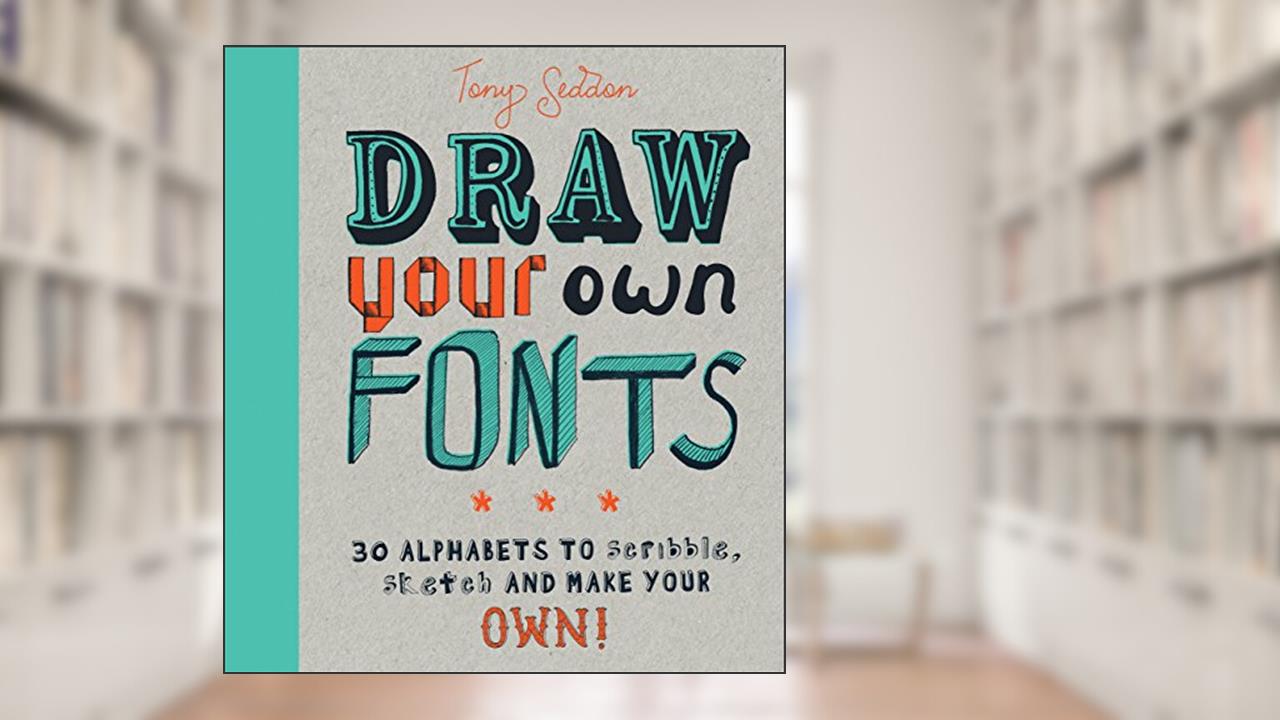
Draw Your Own Fonts
30 alphabets to scribble, sketch, and make your own!
Tony Seddon
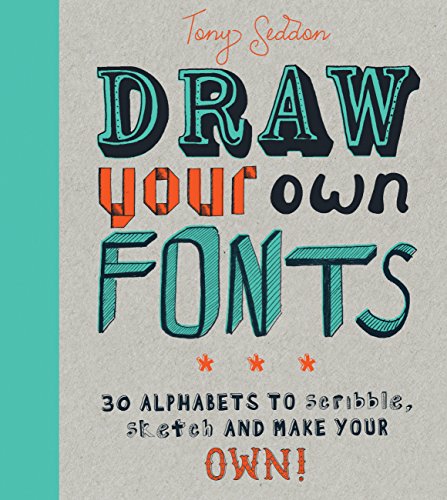
Artistry intertwines with playfulness in Draw Your Own Fonts: 30 alphabets to scribble, sketch, and make your own! by Tony Seddon, a gem for anyone looking to unleash their creativity. This isn't just a simple guide to letters; it's a vibrant invitation to shake off the mundane shackles of conventional typeface design and dive headfirst into a world filled with whimsical alphabets waiting to be brought to life by your own hands.
People often think fonts are merely the tools of typographers or graphic designers, but Seddon compels you to realize they can be a personal expression of who you are. Throughout the 160 pages, you will feel the magic coursing through each suggested style, from the bold strokes of calligraphy to the playful curves of cartoon-inspired letters. The sheer joy of doodling transforms into a purpose-a means of communicating not just words, but personality.
Readers rave about how Seddon's unique approach not only arms them with techniques but also nourishes their imagination. With 30 distinct alphabets, you're not just learning; you're engaging in a creative dialogue with the pages, sketching your own narrative in letters. You won't merely follow instructions; instead, you'll embark on a journey of self-expression where each letter becomes a doorway to reflection and joy. ✍️✨️
Seddon's knack for making typography relatable has been a breath of fresh air for both novices and experienced artists. Imagine the delight as you discover the playful energy behind "doodle fonts" or the elegance in "decorative scripts." Each section offers a new style to master, paired with prompts that spark innovative ideas. You are not just learning; you're crafting your unique voice-an empowering experience.
However, not all responses have been champagne and confetti. Some readers express frustration, feeling that the styles may not suit their personal aesthetic or that the prompts sometimes push them out of their comfort zone. But, let's be honest, isn't that precisely the thrill of creativity? It's about breaking boundaries and discovering new horizons, embracing the discomfort as part of the artistic journey.
The historical context is just as riveting. During an age where digital fonts reign supreme, Seddon champions the lost art of hand-drawn letters, reminding us that the tactile experience of creating something with our hands is irreplaceable. It's almost poetic, this resurgence of handcrafted creativity amid a tech-dominated world. What Seddon promotes is not merely an artistic endeavor but a rebellion against the sterile uniformity of automated designs.
This book resonates deeply in a culture that often dismisses the value of manual artistry, granting you the spark necessary to ignite that innate desire to create. Found in the folds of Seddon's guidance is not just technique, but an ethos; that every font you craft is a testament to your boldness, a mark of your individuality in a world that frequently pushes us into conformity.
So grab a pencil and let your creativity beckon. Unlock the transformative magic of Draw Your Own Fonts and watch as your alphabets evolve, each letter radiating a piece of your spirit. 🎨🖌 This isn't just a book; it's an experience, a movement towards reclaiming the personal in an era dominated by the digital. You don't want to miss out on this opportunity to redefine how you communicate, one stylized letter at a time. Dive in, and see how exhilarating it is to etch your mark on the canvas of typography!